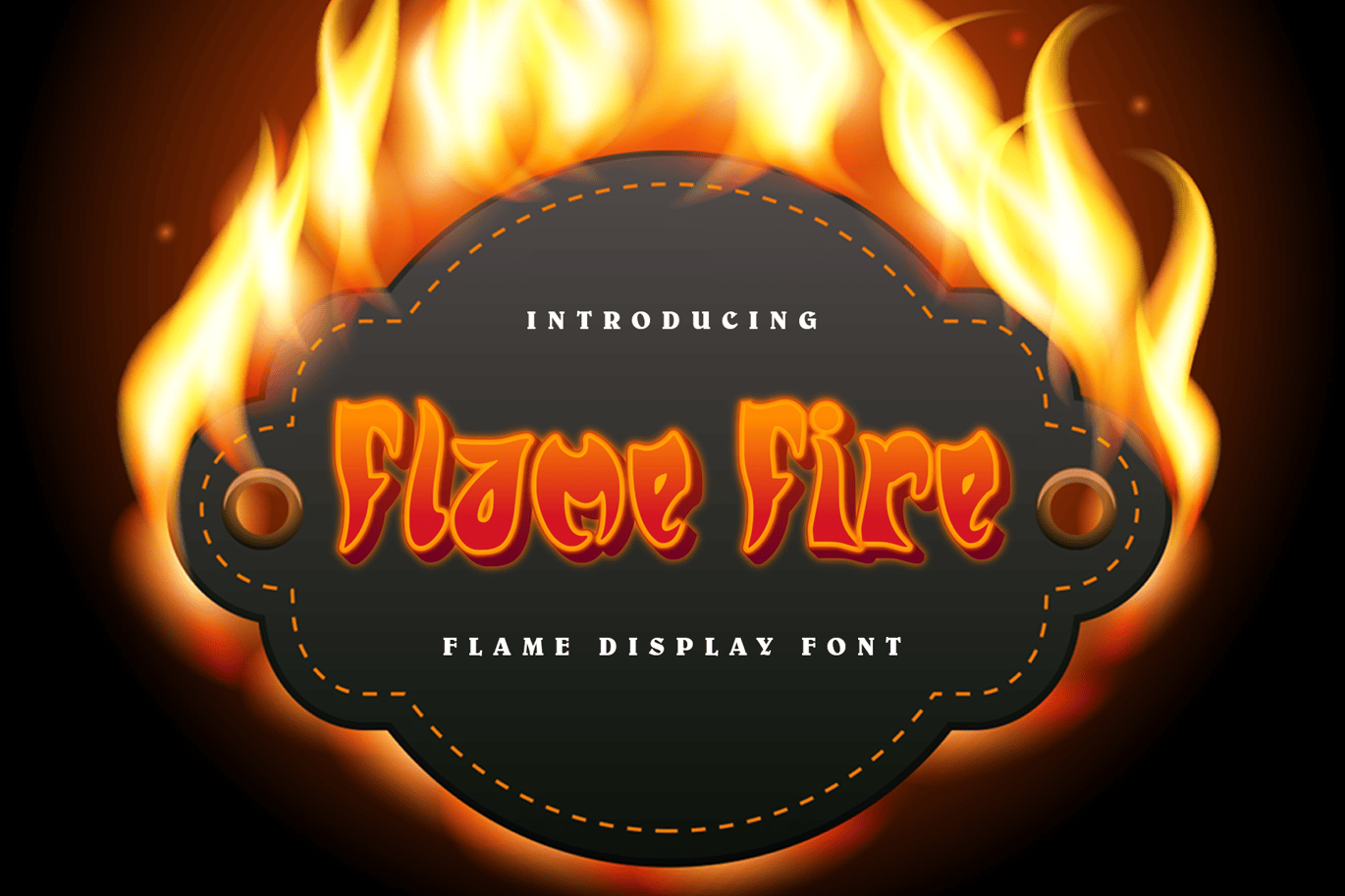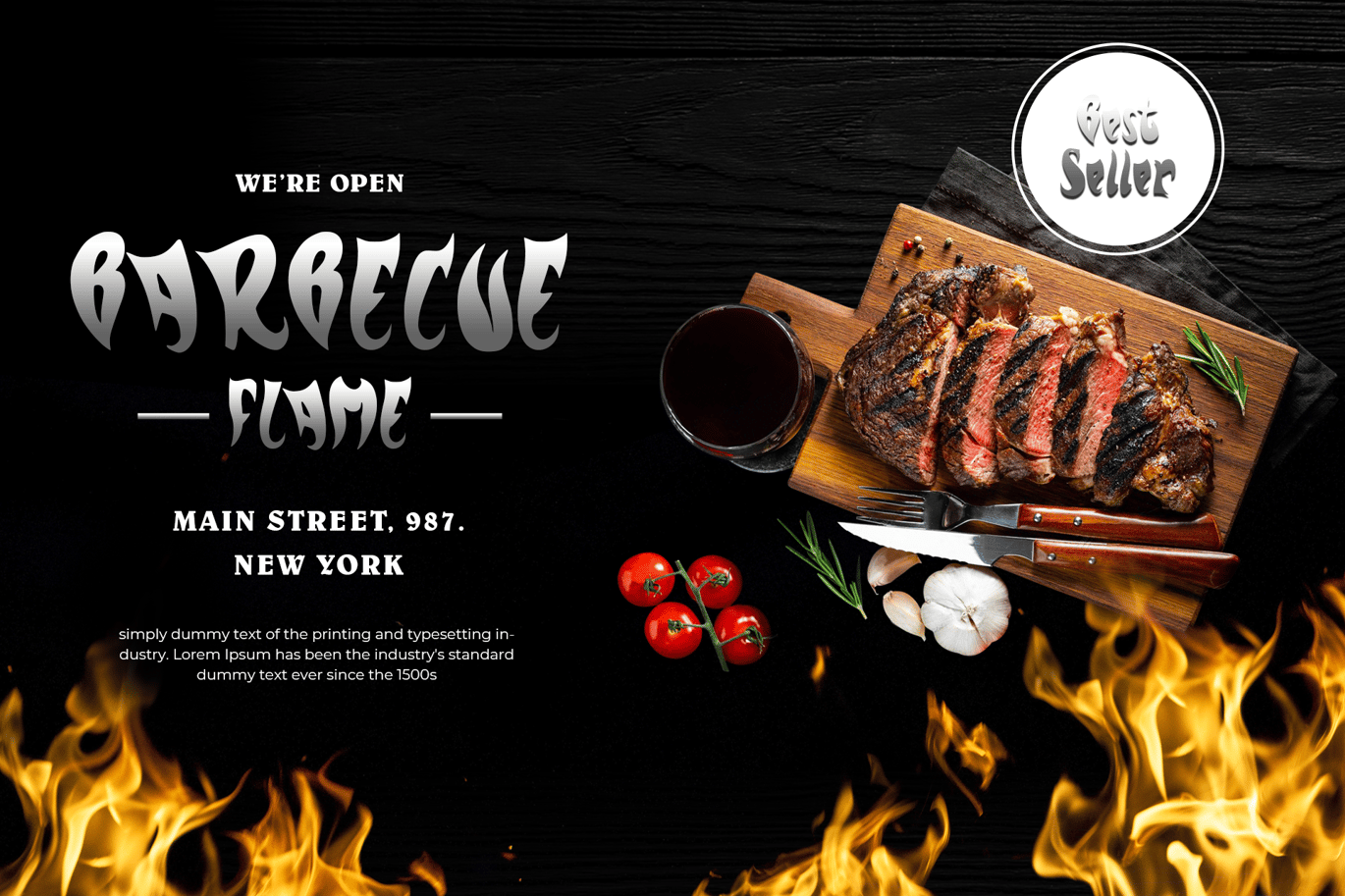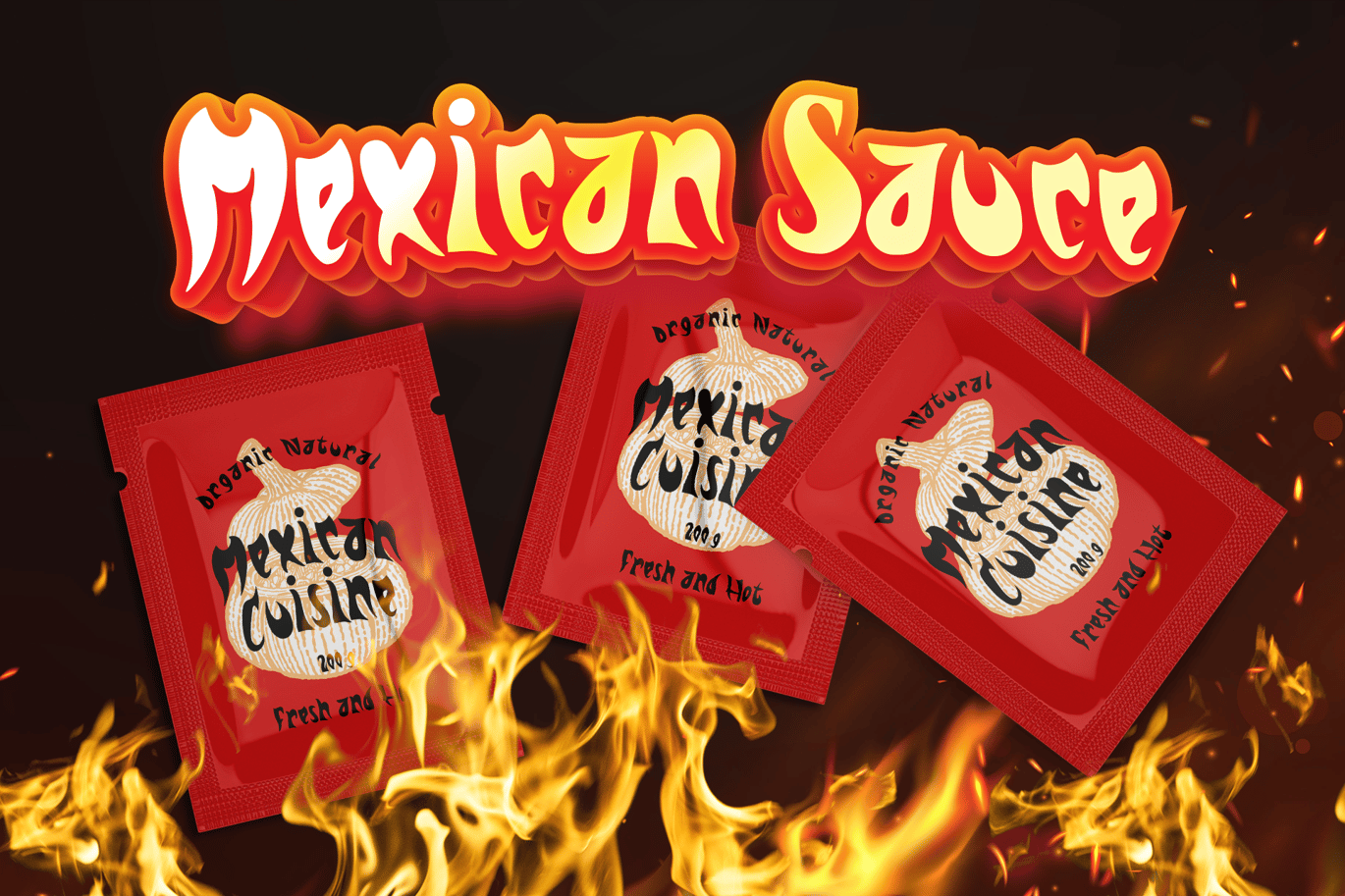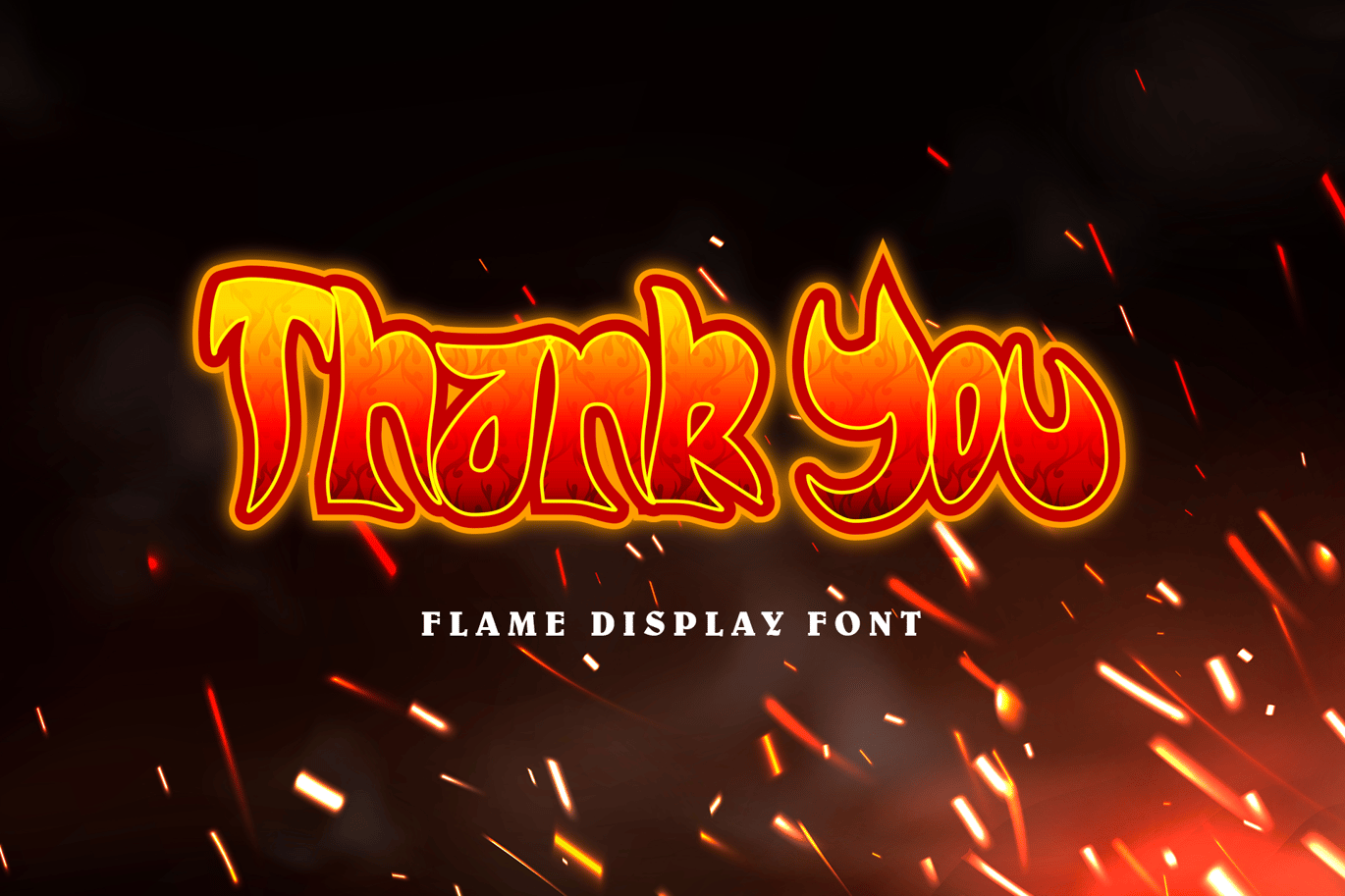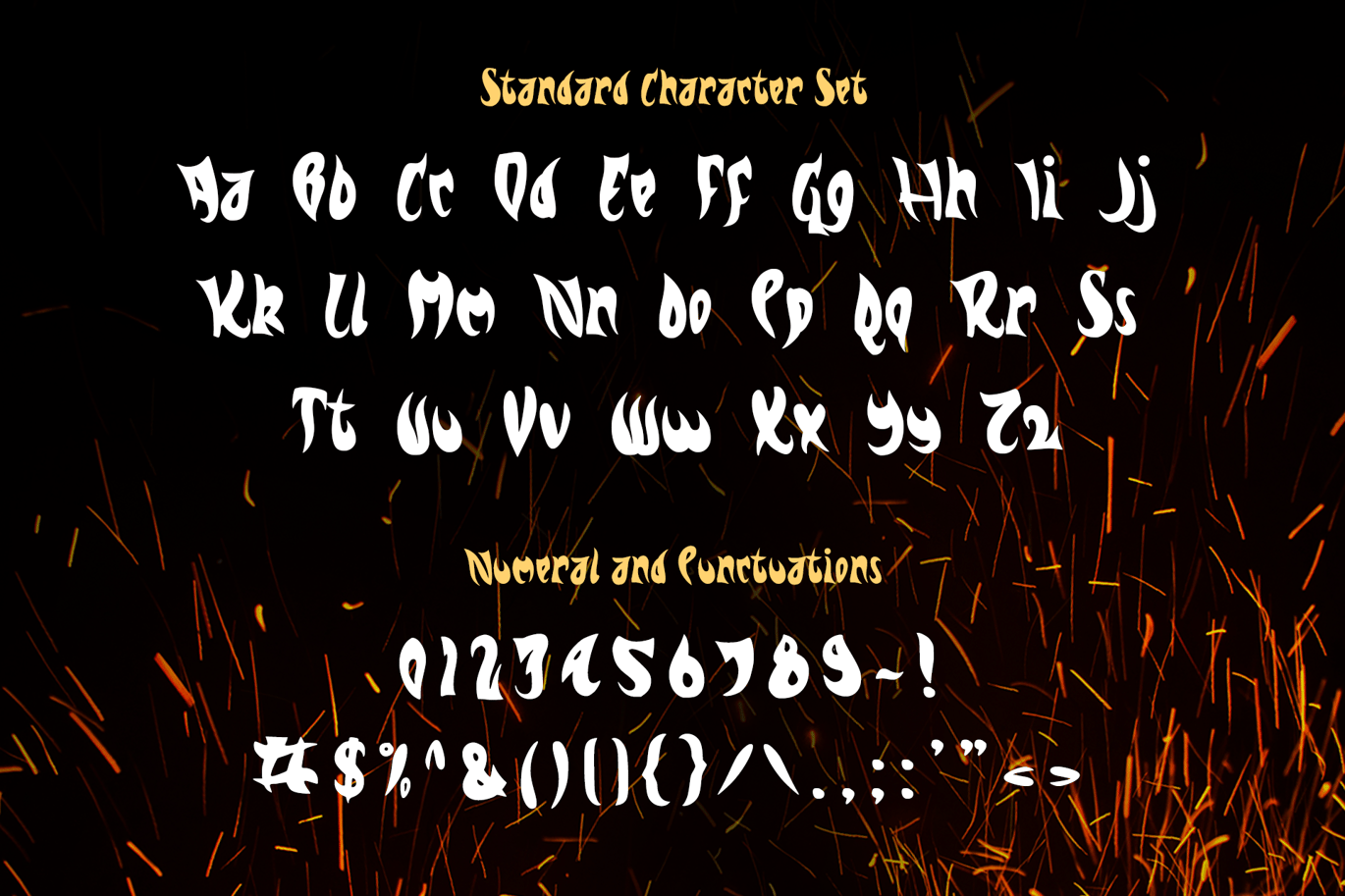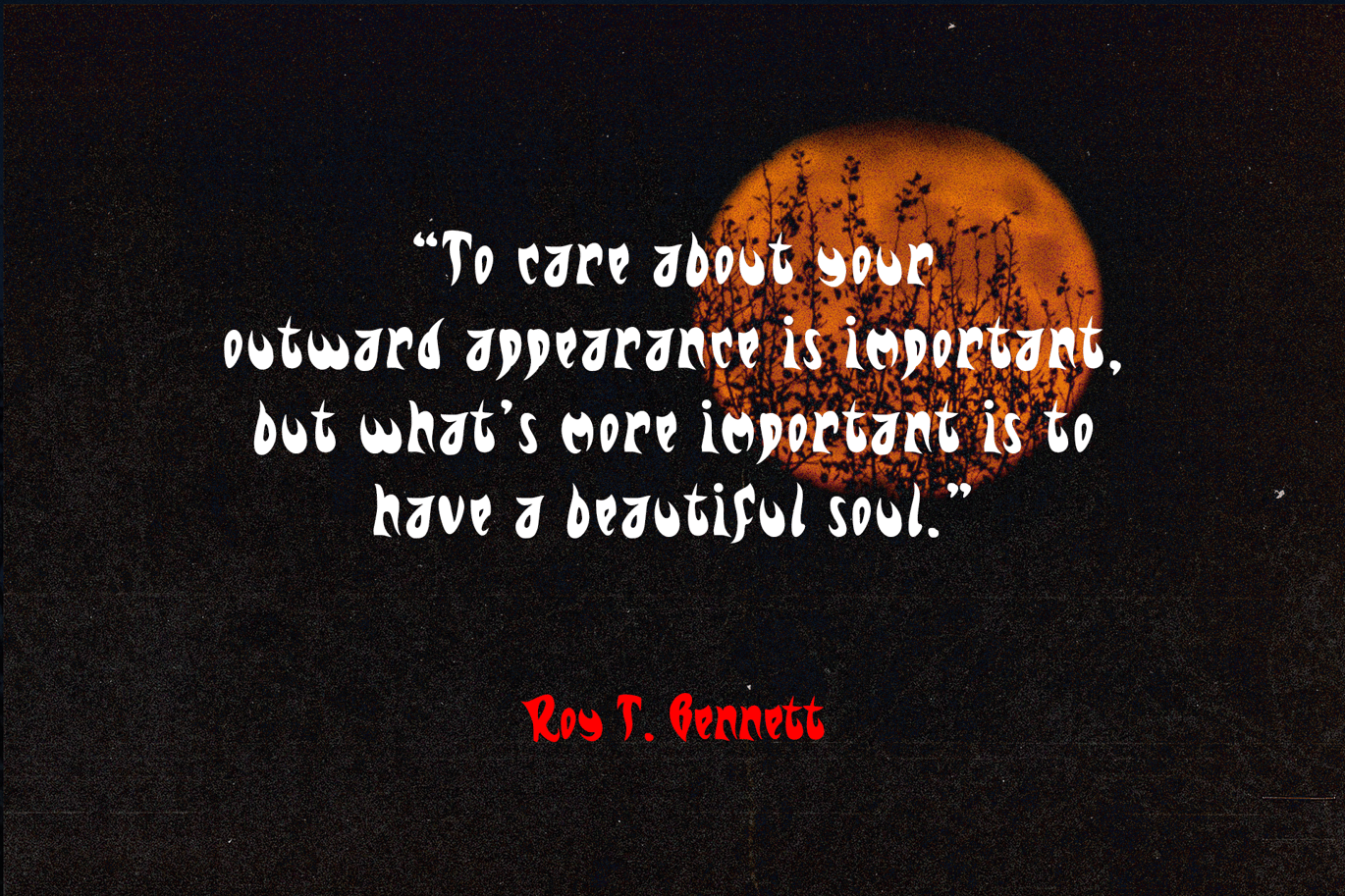
FlameFire Display Font
FlameFire Display Font, is our new font and suitable for mockup or any work.
Great for
Sticker, Invitation Card, Brochure, etc.